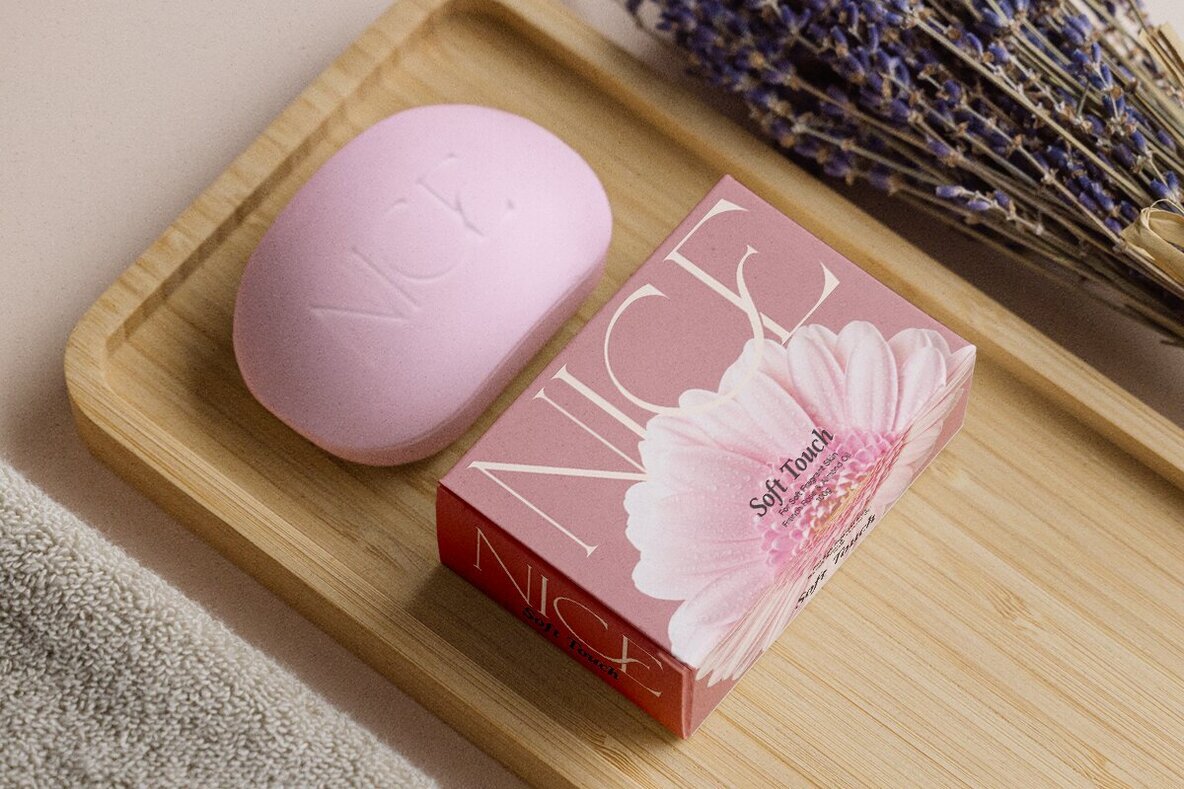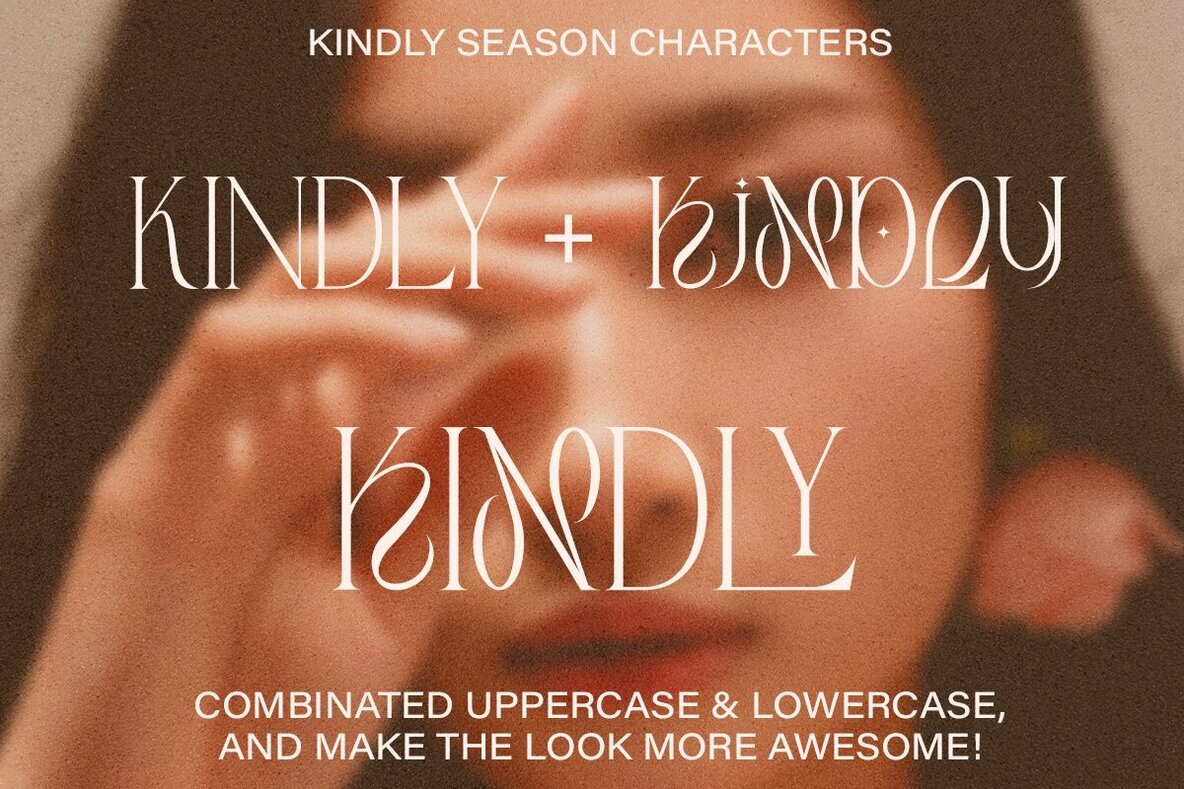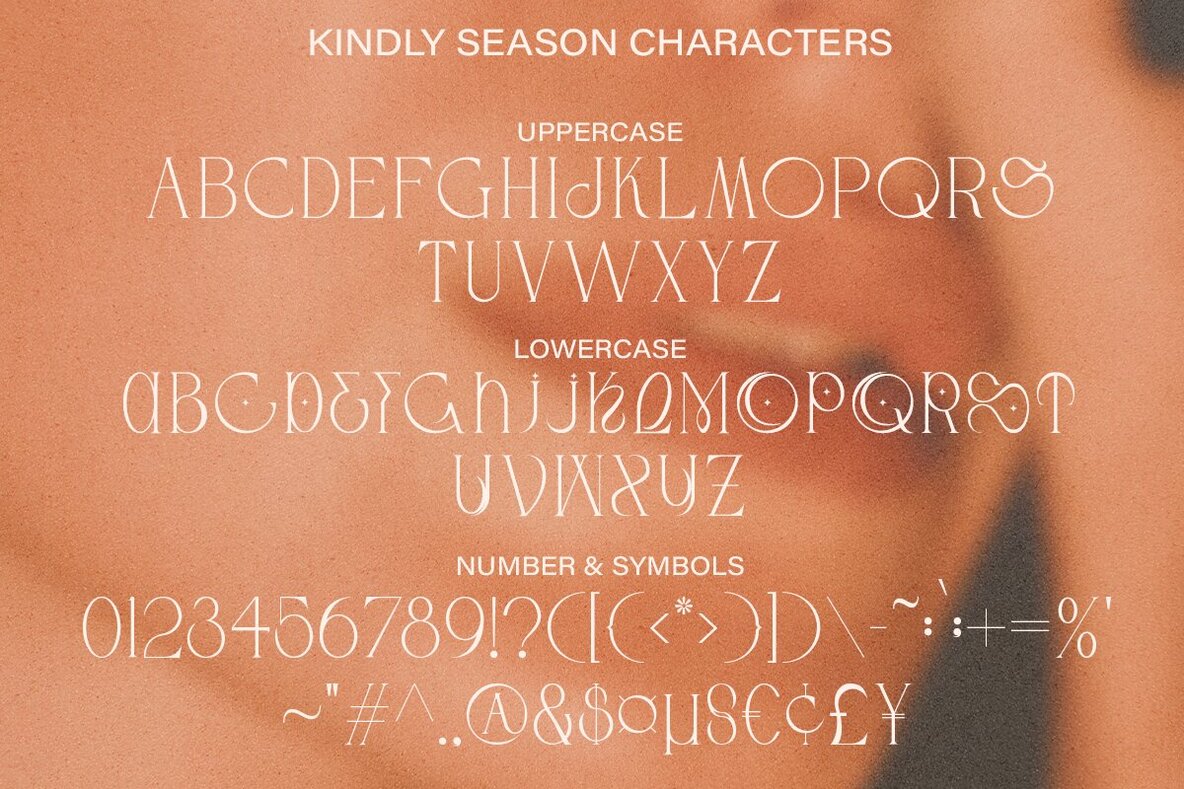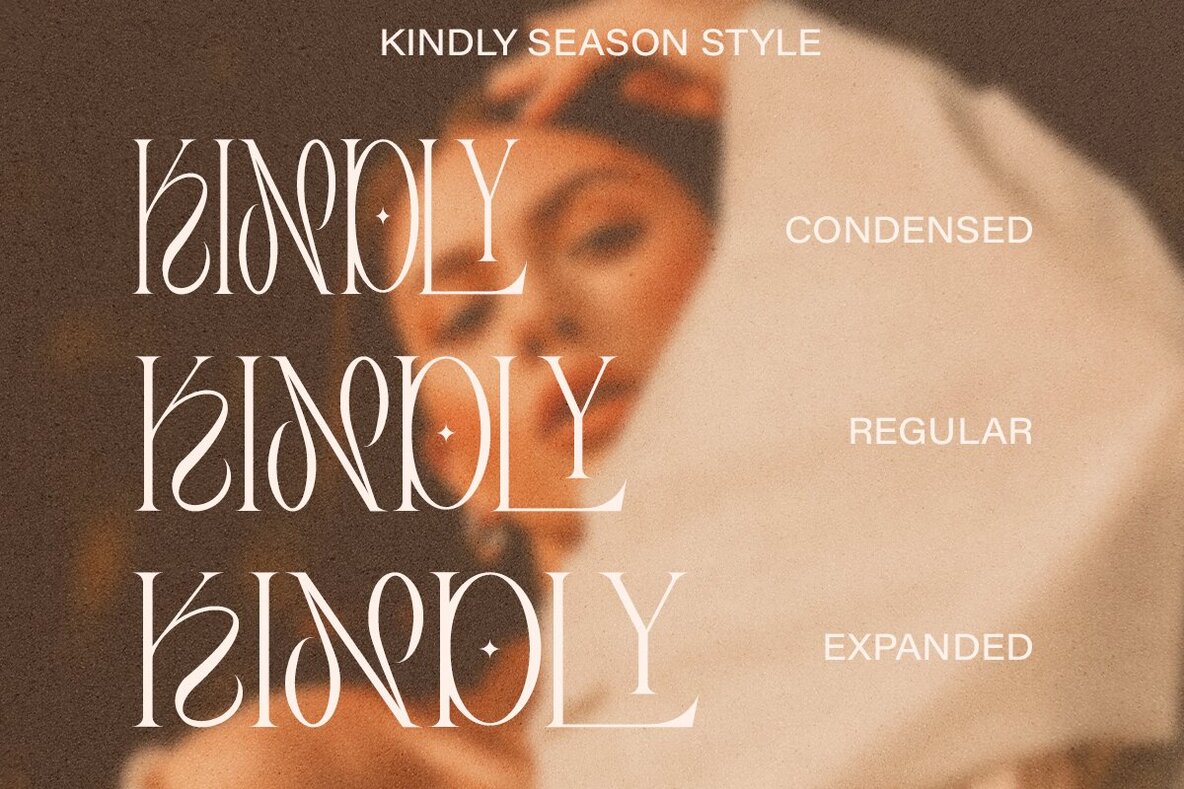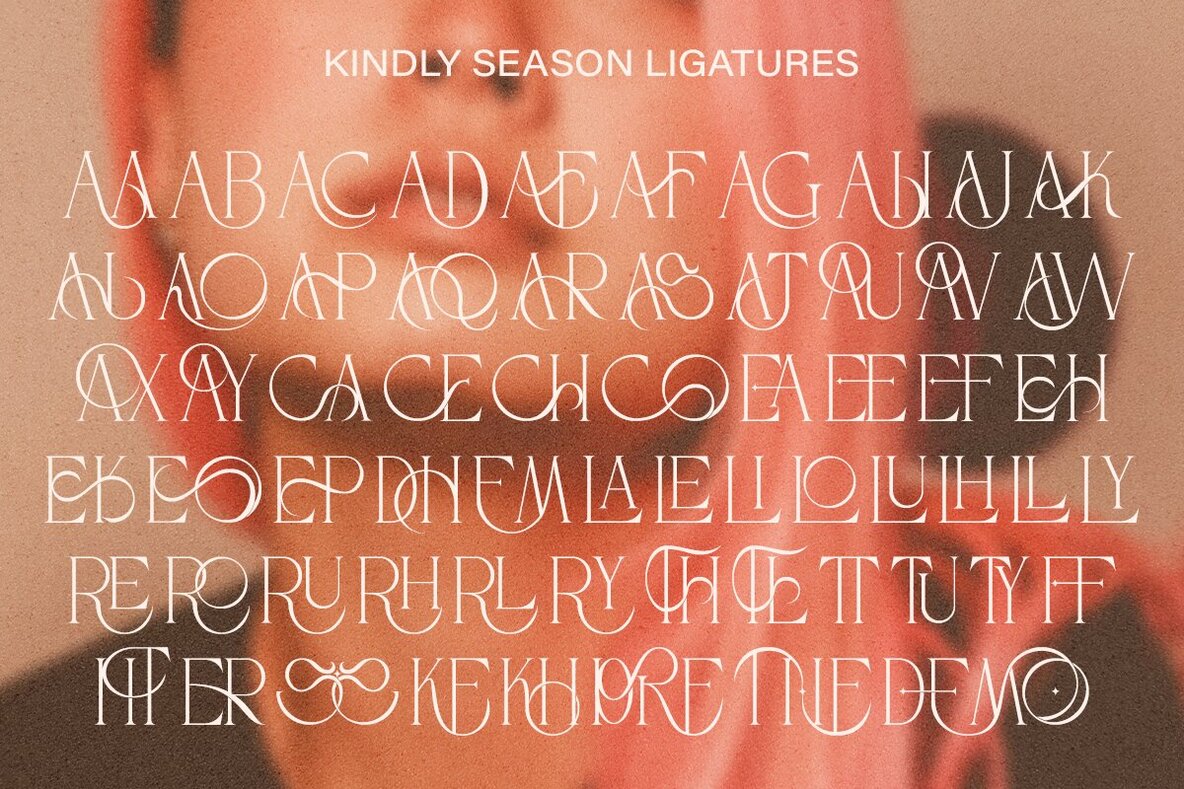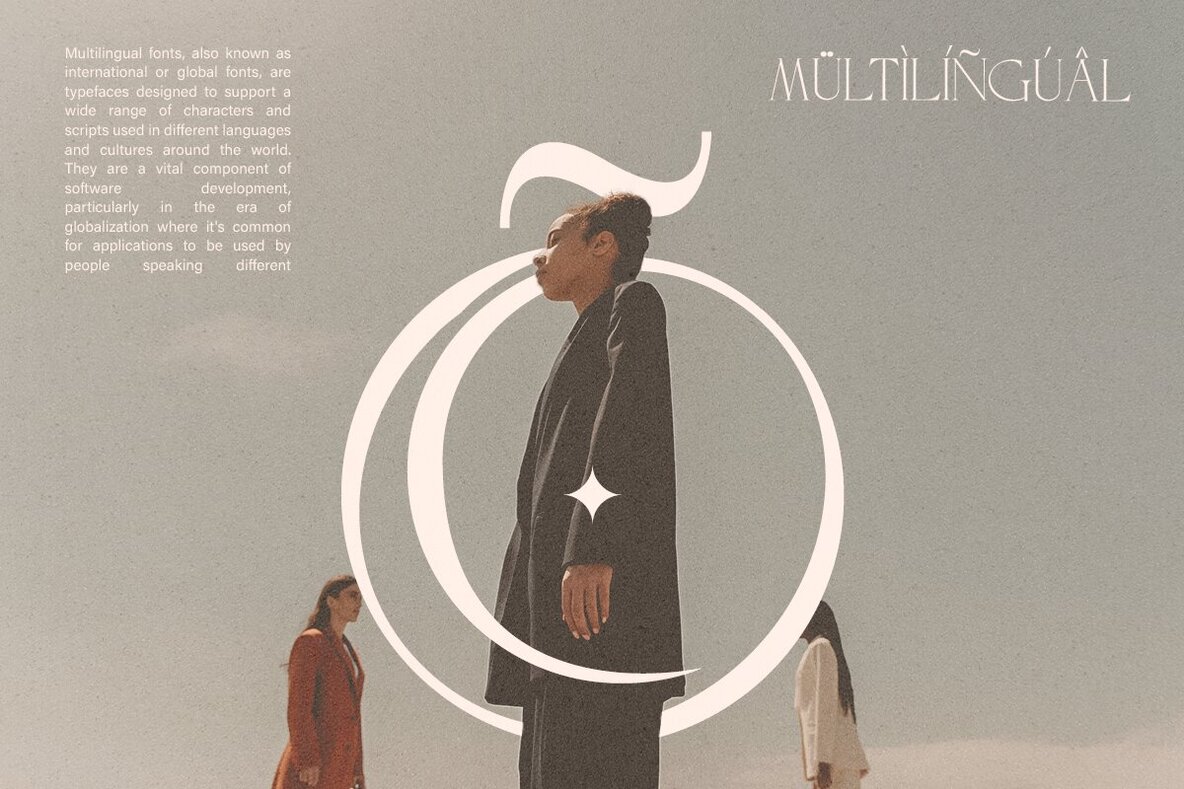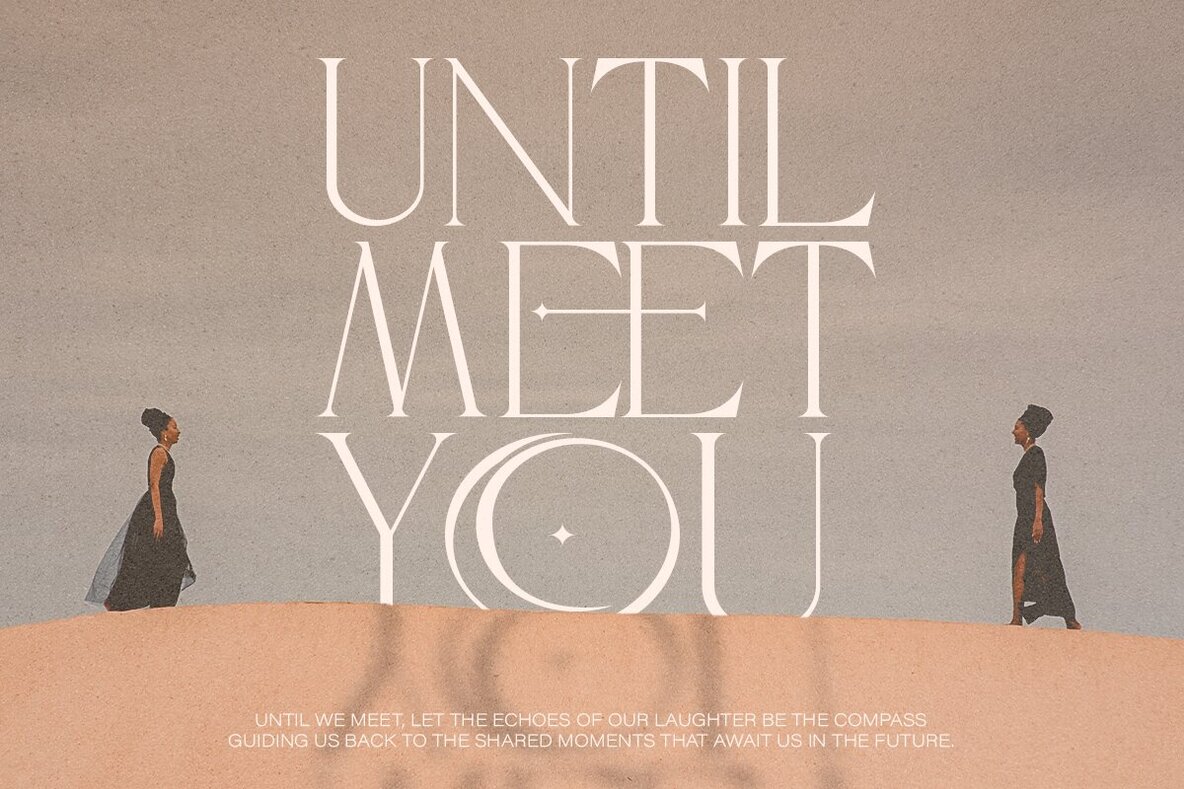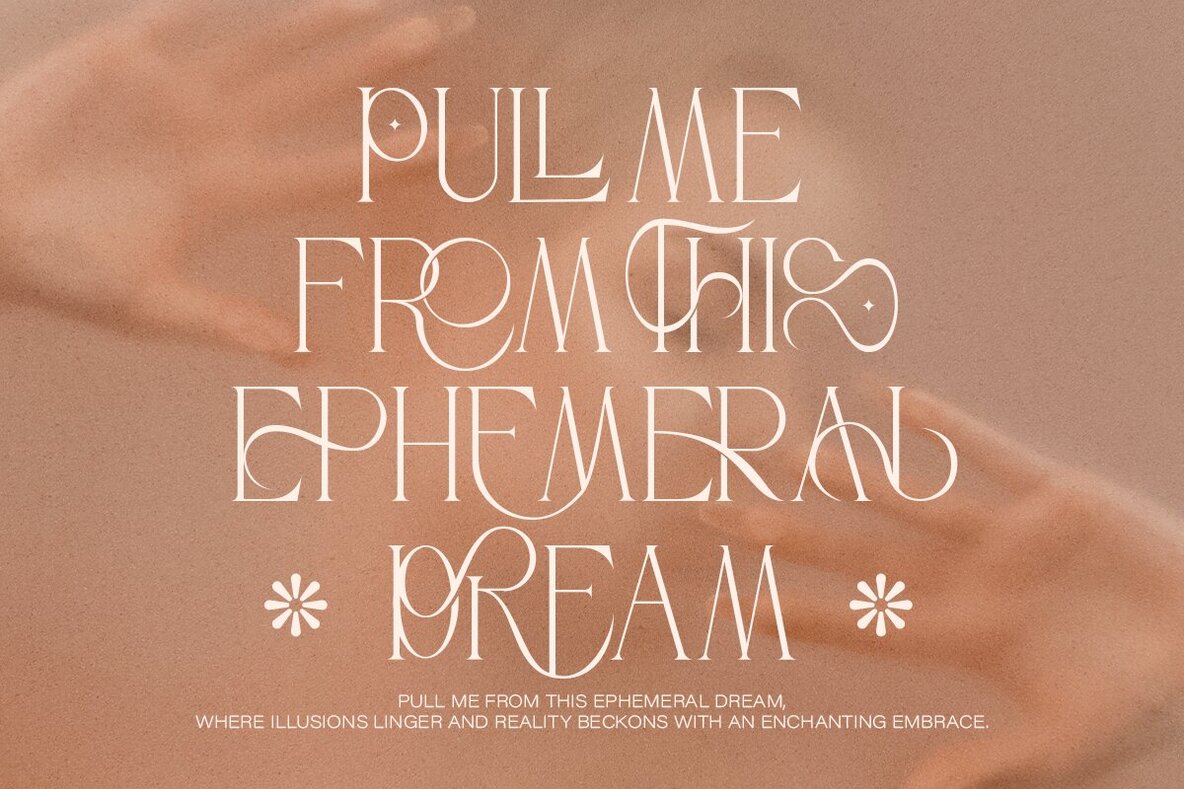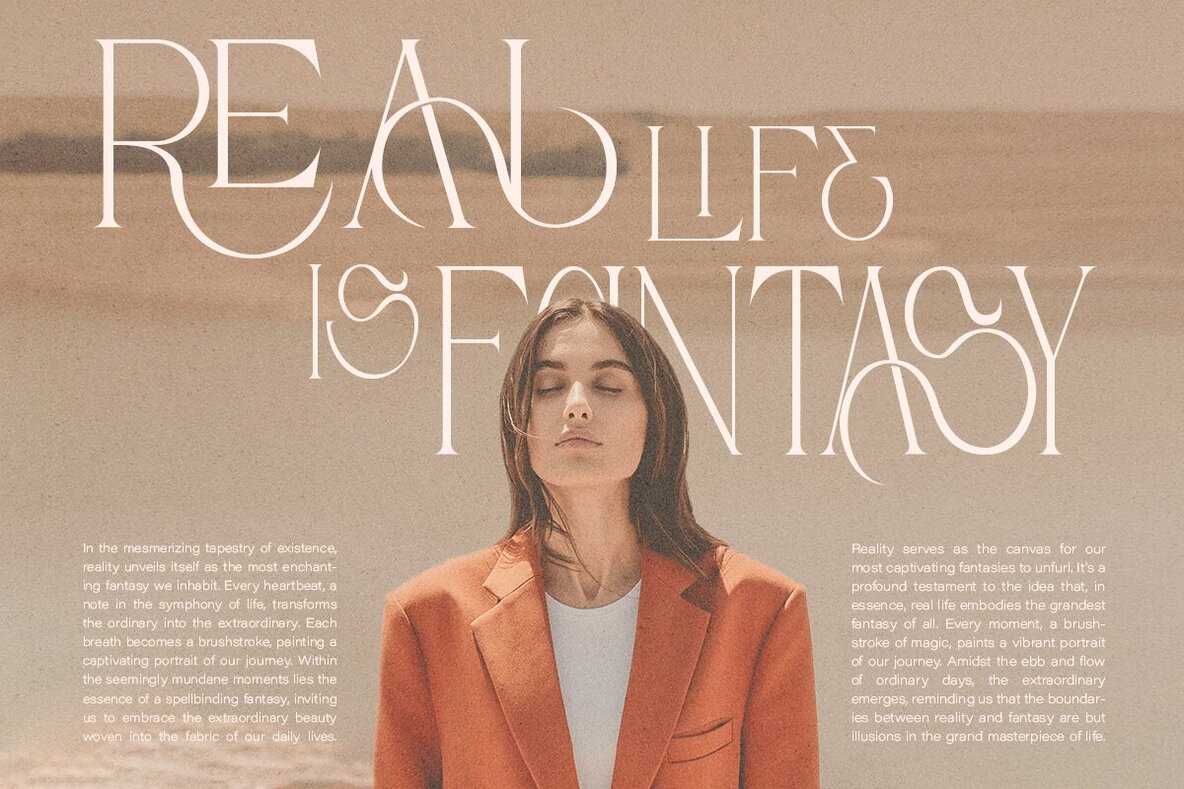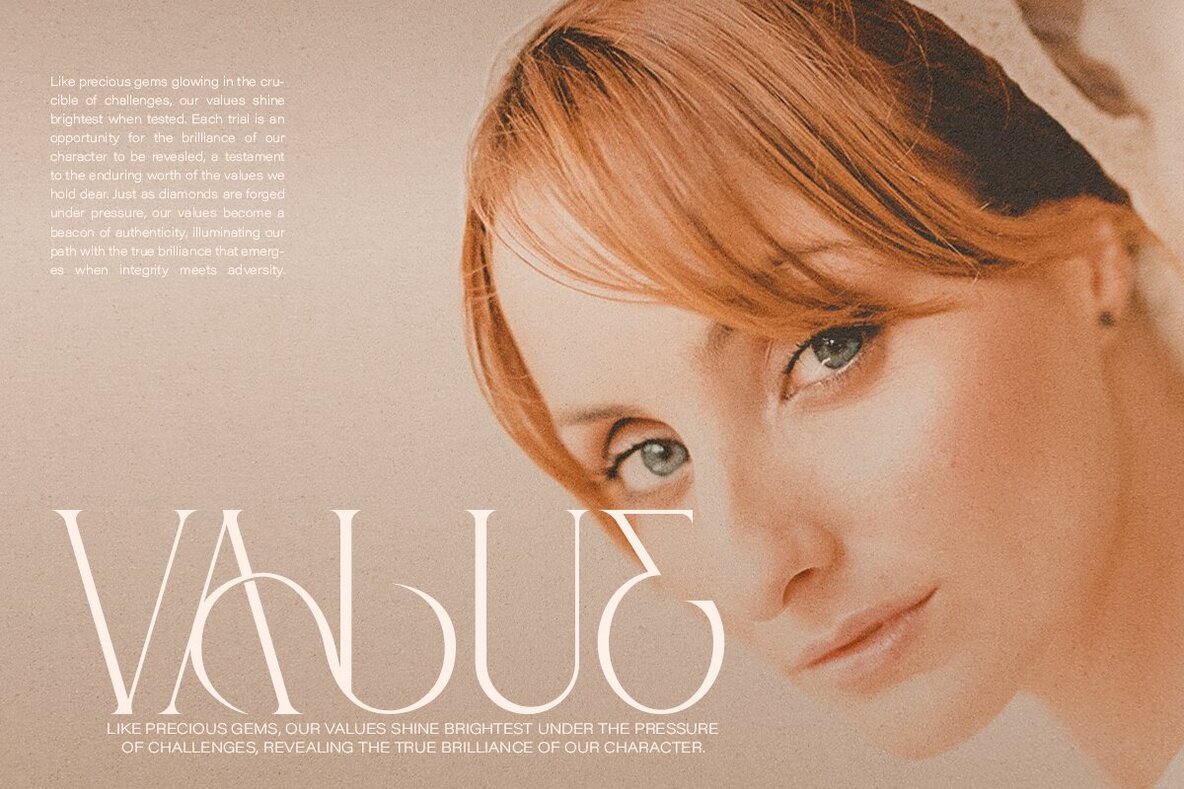
Kindly Season Font
Kindly Season by Dharmas Studio is a new decorative serif font, uniquely designed for modern aesthetics. Kindly Season stands out with its lowercase letters, which are uniquely designed to resemble uppercase letters. You can easily switch to uppercase by using alternate letters, adding a flexible creative touch to your designs. The font comes in three versatile versions: Condensed, Regular, and Expanded. With more than 60 unique ligatures, it's straightforward to create custom typography, making it ideal for stunning logos, headlines, and quotes. Featuring a distinctive 'S,' Kindly Season is tailored for headers in projects and is equally effective in logos. The collection includes other creative, decorative-style letters, perfect for adding a touch of creativity to your work. Try typing in all lowercase to see its full potential. Language Support: Danish, English, Estonian, Filipino, Finnish, French, Friulian, Galician, German, Gusii, Indonesian, Irish, Italian, Luxembourgish, Norwegian Bokmål, Norwegian Nynorsk, Nyankole, Oromo, Portuguese, Romansh, Rombo, Spanish, Swedish, Swiss-German, Uzbek (Latin)Kindly Season: A Modern Decorative Serif
Font Versions and Ligatures
Unique Design Elements